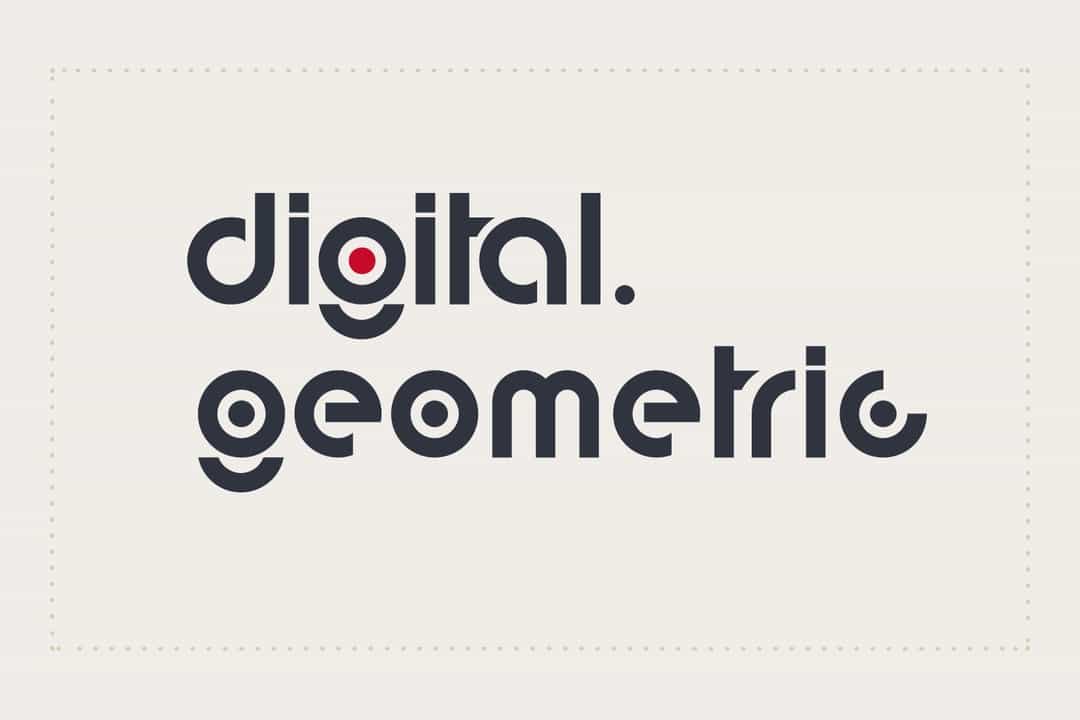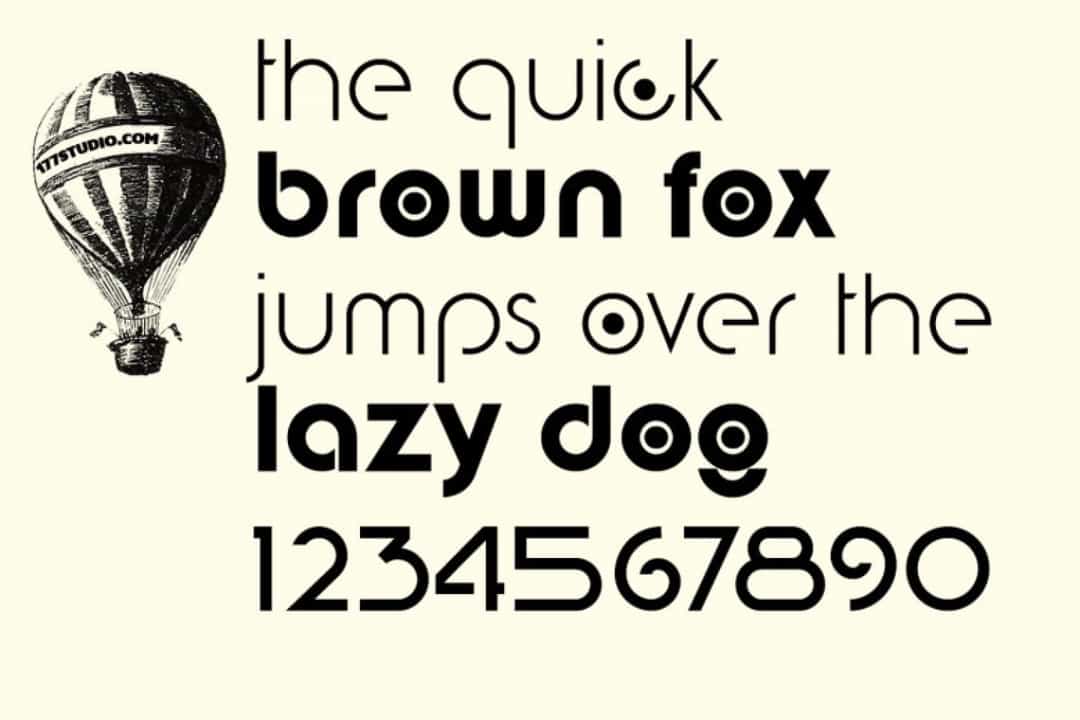
Digital Geometric Font is a modern geometric sans serif typeface family. The near-monoline geometric construction gives this font its classic appearance that’s further softened by soft edges and lively designs. A warm and charming lowercase; elegant and authoritative in uppercase.